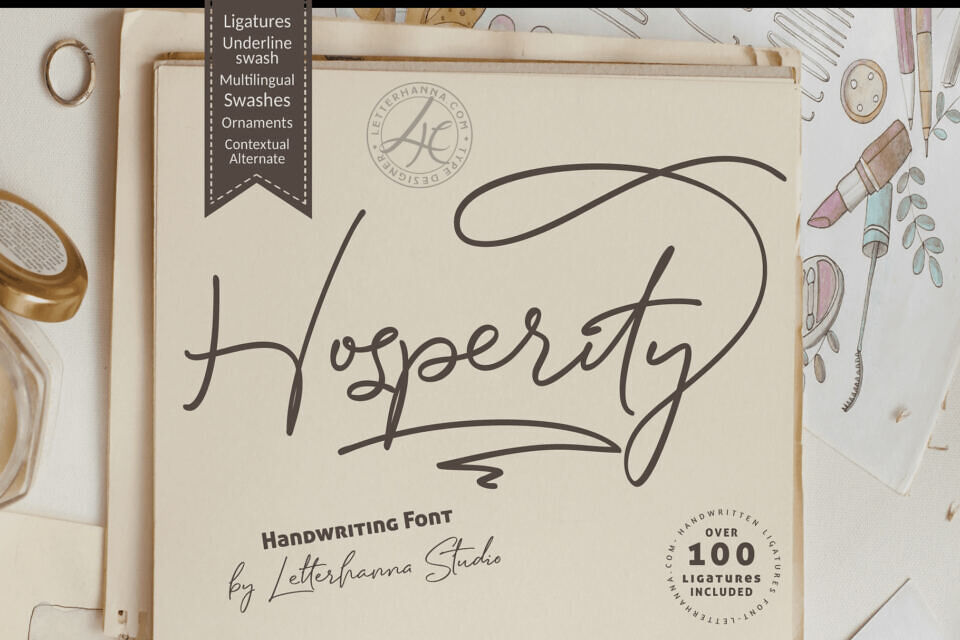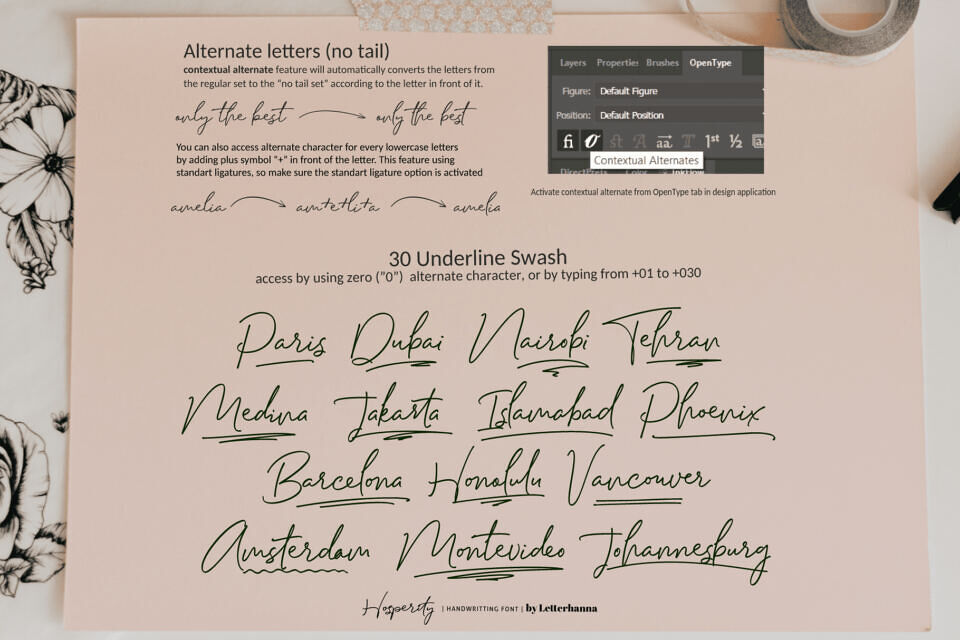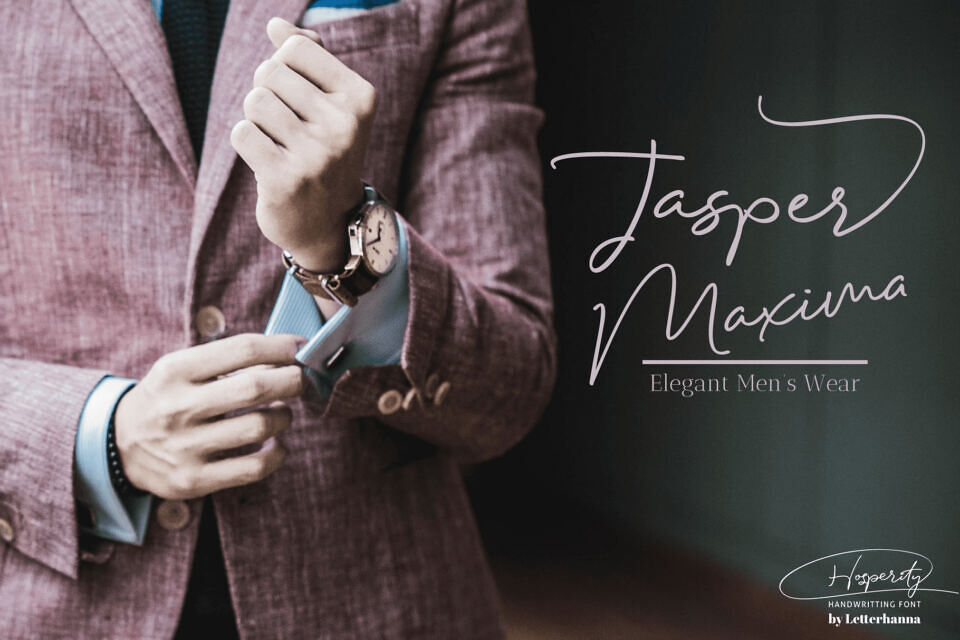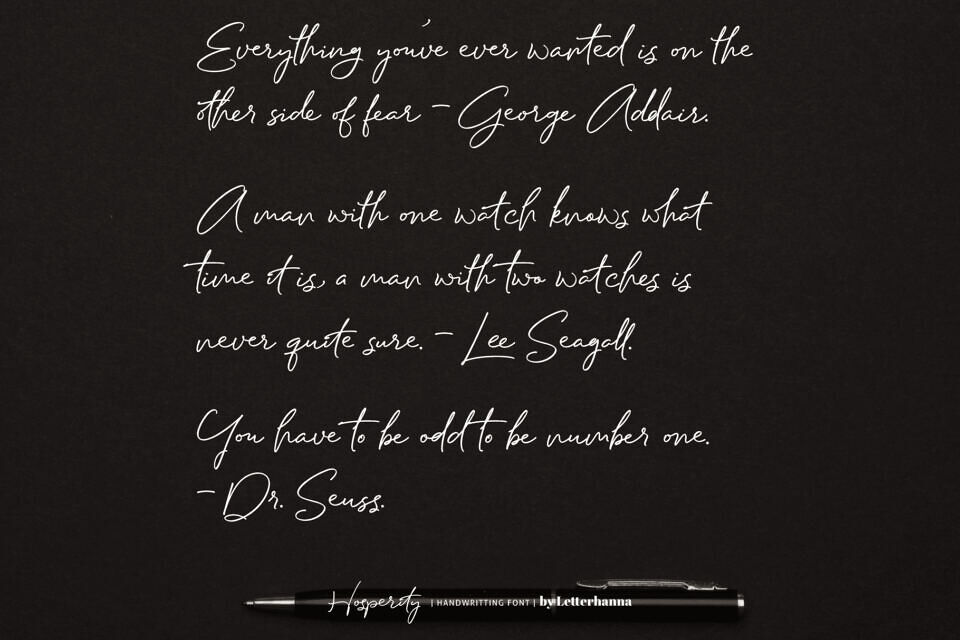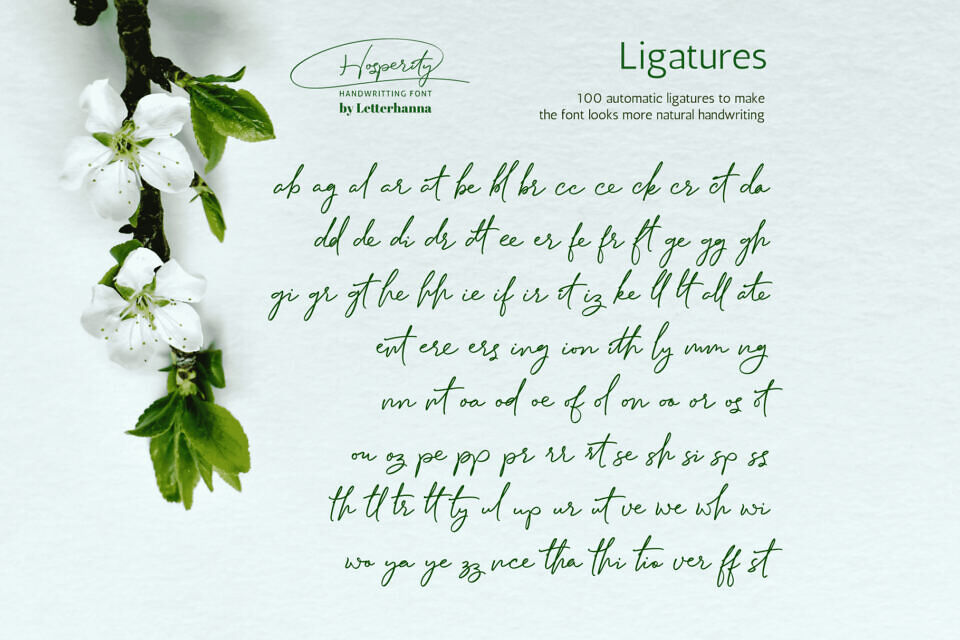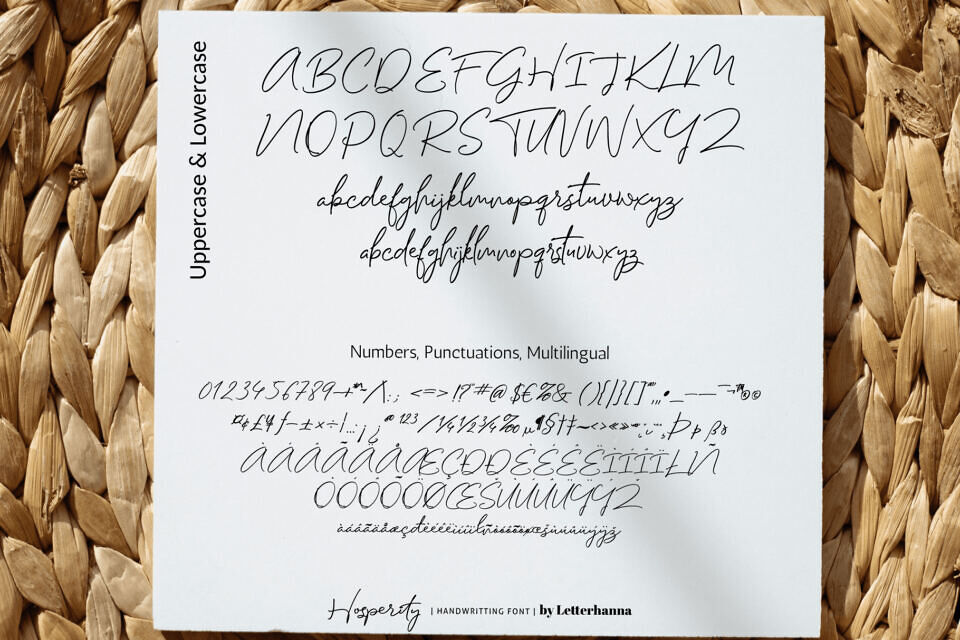
Introducing Hosperity Handwriting Font, a unique product that adds a personal touch to your designs. Perfect for invitations, posters, and logos, it brings a handcrafted look to your projects. With over 100 natural-looking ligatures and lowercase alternates, this font mimics natural handwriting.
Access alternate glyphs, swashes, and ornaments easily using ligatures. Try it out in the font preview tool and discover its warm, welcoming feel. Use the “+” symbol to switch between standard and alternate glyphs for a customized look.